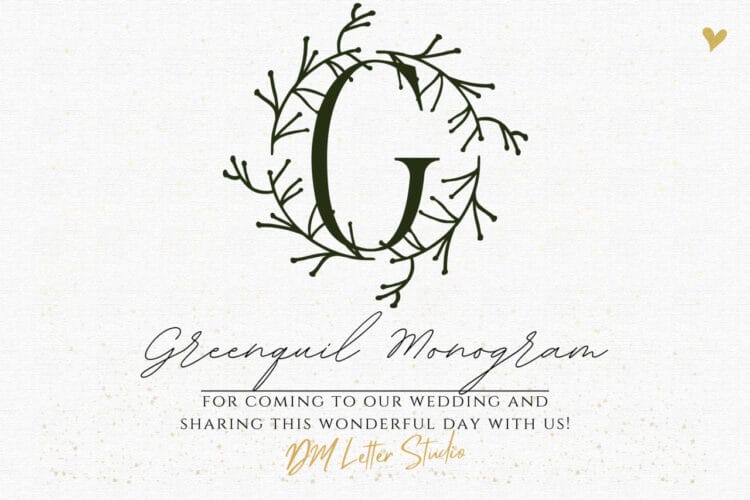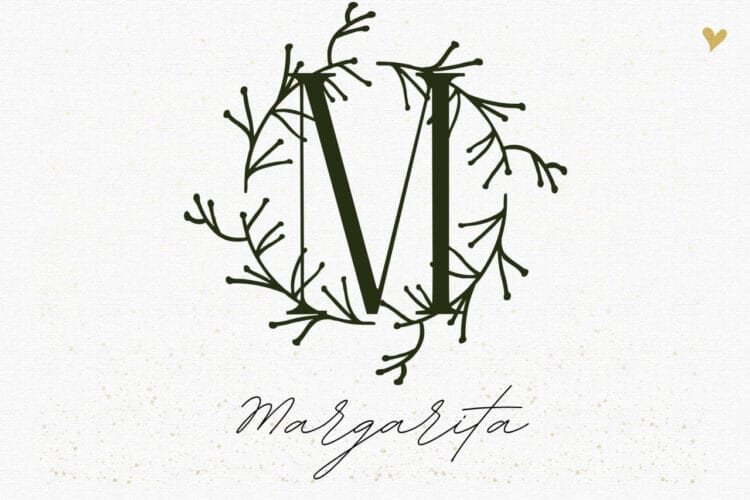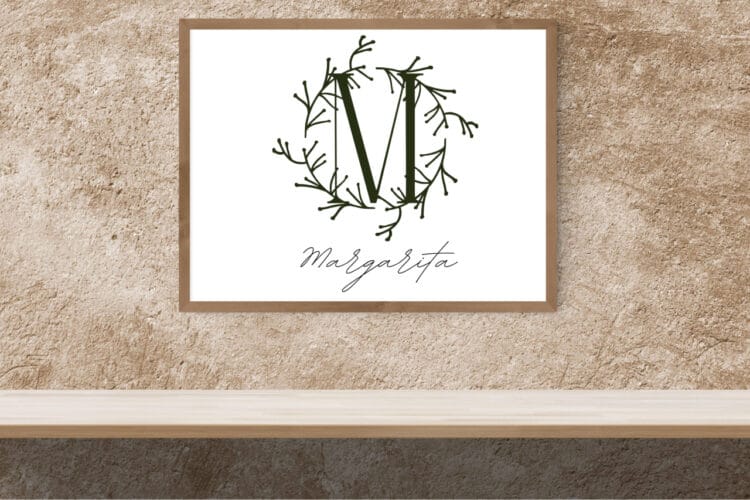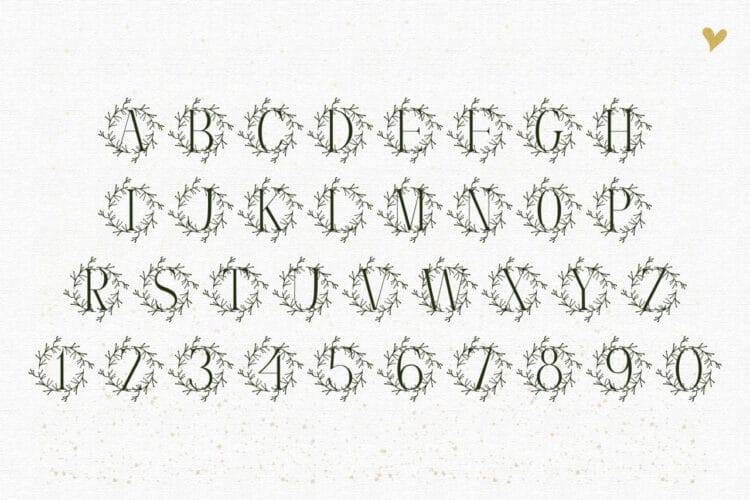
Meet Greenquill, the Monogram Font
Greenquill Monogram turns initials into refined botanical marks inspired by gentle leaves and hand-drawn quill strokes. The design feels natural, calm, and slightly organic, blending soft curves with confident structure. Each letter stays clear at any size, so small tags remain readable while larger designs look graceful and well balanced. Use Greenquill for weddings, eco-inspired branding, stationery, keepsake gifts, and premium packaging. As a result, your designs feel fresh, thoughtful, and quietly elegant.
Fast layouts with the Greenquill Monogram Font
Start with a central initial and let the organic form breathe. After that, add names or dates using a soft serif or clean sans serif. Because Greenquill holds its shape at small sizes, labels, stickers, cards, and tags stay crisp and readable. In addition, it works beautifully with wreath frames, oval borders, thin dividers, and subtle greenery accents. Finally, save color palettes like sage and cream, olive and ivory, eucalyptus and linen, or charcoal and soft gold to reuse across product lines.
Creative uses and quick wins
- Wedding monograms, invitation covers, and save-the-date cards
- Logo seals, certificates, and boutique brand marks
- Gift tags, stickers, and keepsake packaging
- Labels for candles, soap, skincare, tea, and handmade goods
- Alphabet characters (A–Z)
- Numbers (0–9)
Design tips for Greenquill Monogram Font
Keep the monogram as the focal point and use a separate font for supporting text. Also, give it enough breathing room so the organic details stay readable at smaller sizes. For a premium finish, try foil stamping, embossing, or letterpress on thick or textured stock. Finally, export at 300 DPI for print and at 2× size for web so edges remain smooth everywhere.